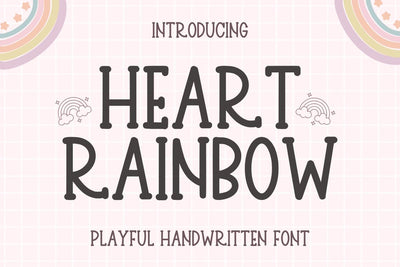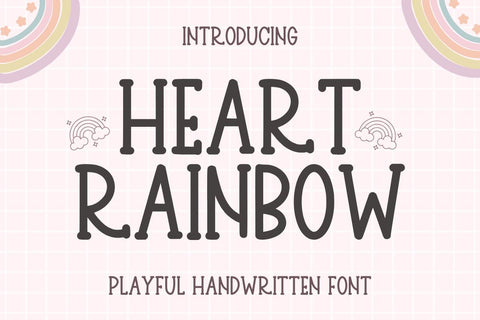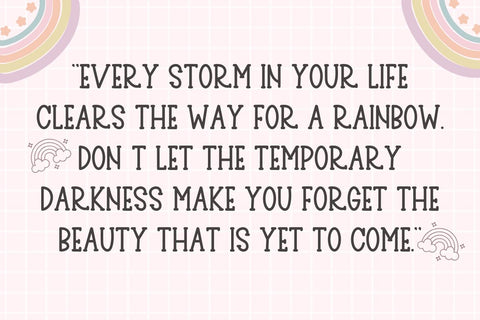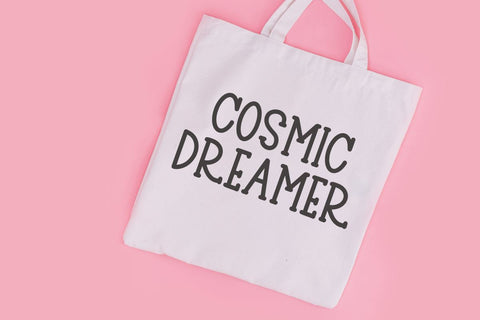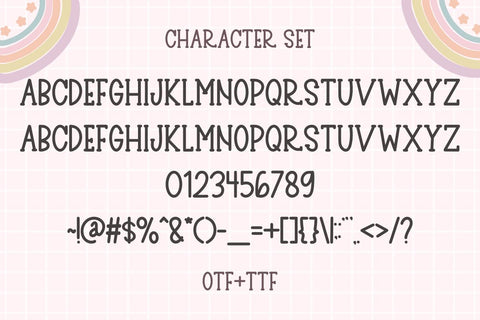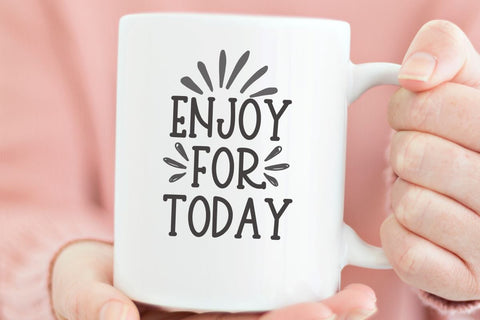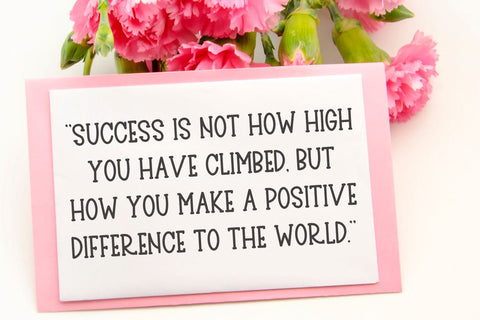
Heart Rainbow - Cute Handwritten Font
Heart Rainbow is a cute natural handwritten font. The font is made naturally original. perfect font for kdp interior, note, planner, journal, diary, notebook, printable, notepad, daily planner, tracker, schedule, organizer, calendar, kdp template, kdp interior, planning, stationery, weekly planner, to-do list, print on demand, document, notebooks, presentation, work sheet, spiral notebooks, monthly planner, notebook paper, invitation, birthday, celebration, card, greeting, event, banner, gift box, Cricut, craft and silhouette.